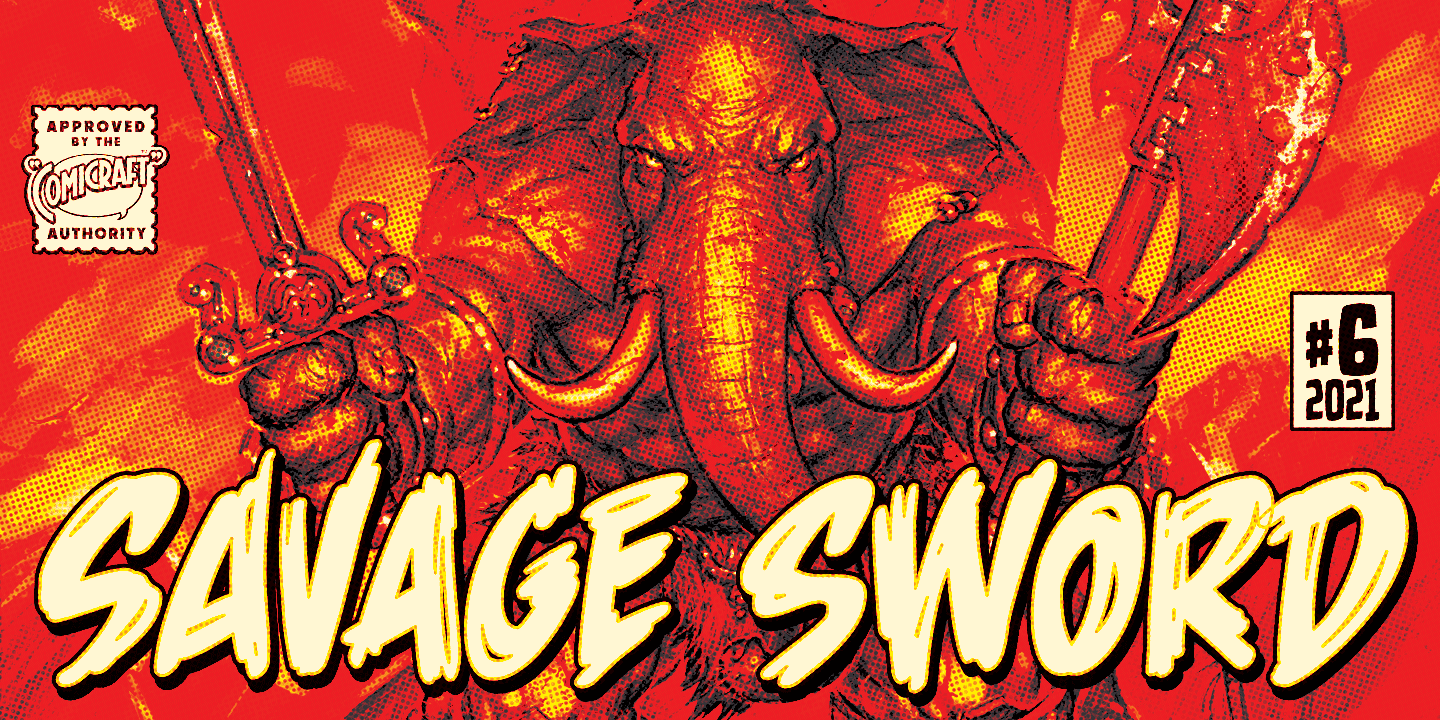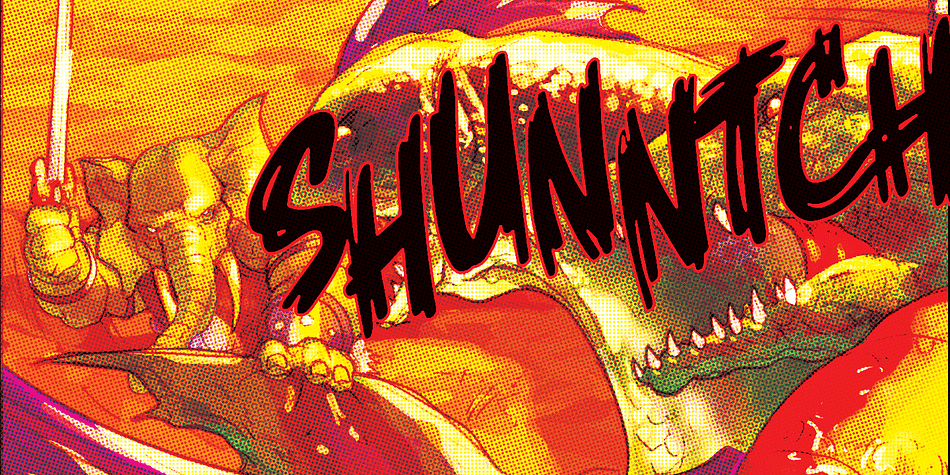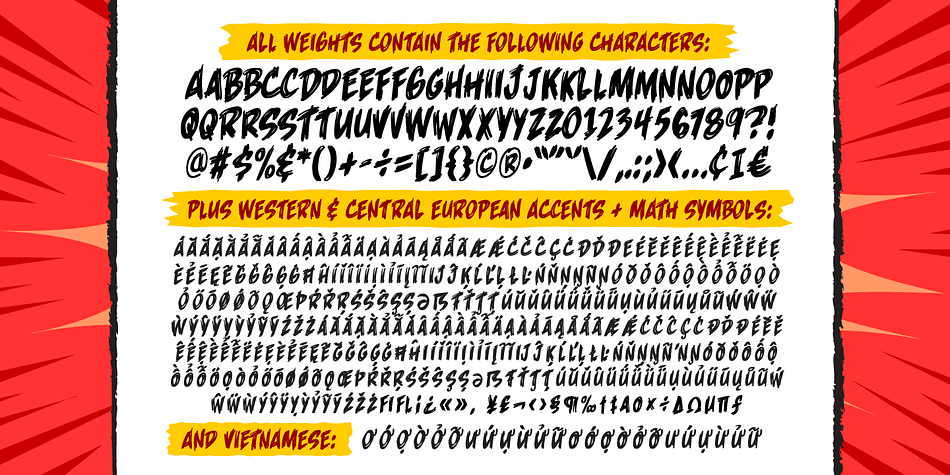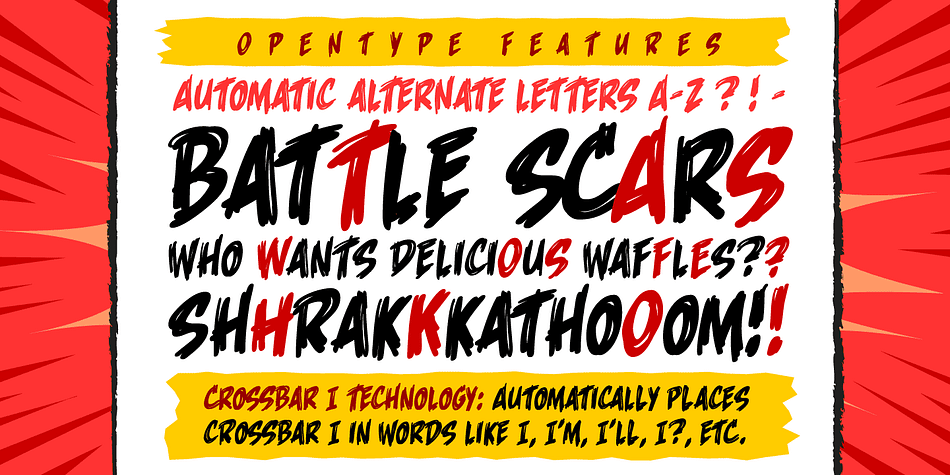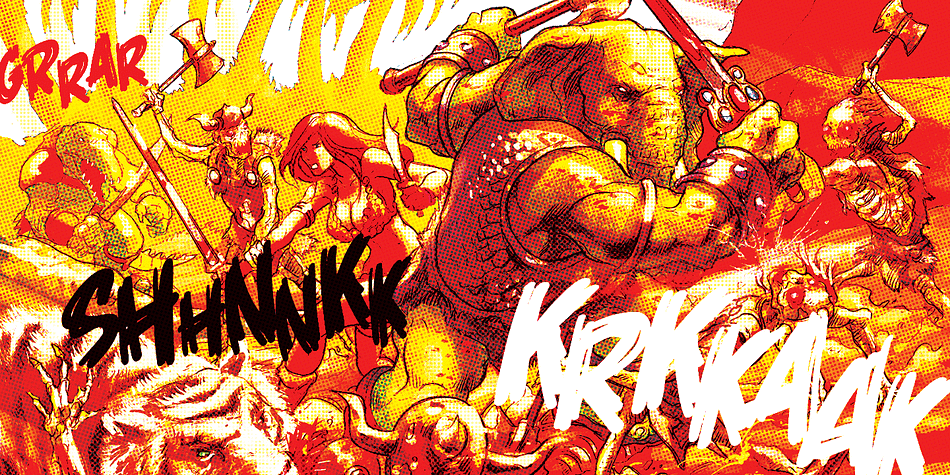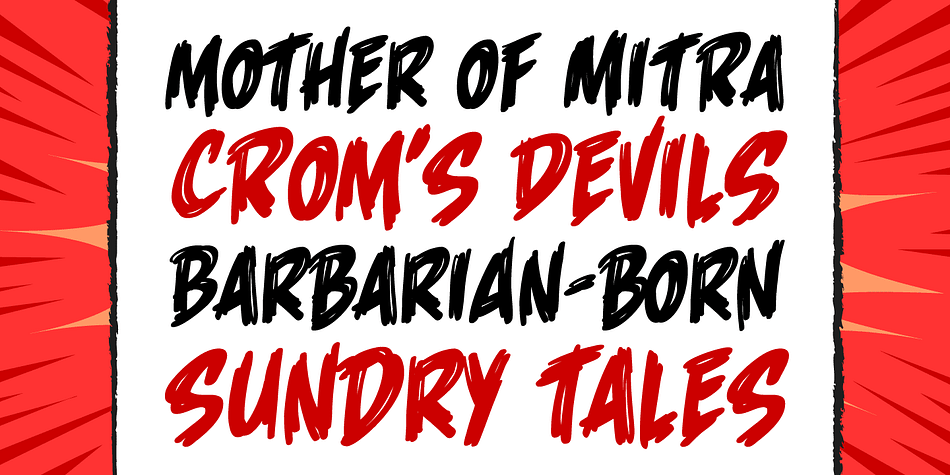
Designed by John Roshell, Savage Sword is a comic and hand display font published by Comicraft.
Mother of Mitra, Crom’s Devils and other Savage WORDS! The only thing better than one dead Pict is TWO! Or THREE! Or FOUR! And what better than this SAVAGE font to sound the sword strokes of a BARBARIAN BORN?! Hack! Slice! Cut your fiendish foes into pieces with Comicraft’s SAVAGE SWORD and tell your SAVAGE TALES to all and sundry and even those you’ve sundered!
Savage Sword features two sets of automatically alternating uppercase characters, plus support for Western & Central Europe and Vietnamese.